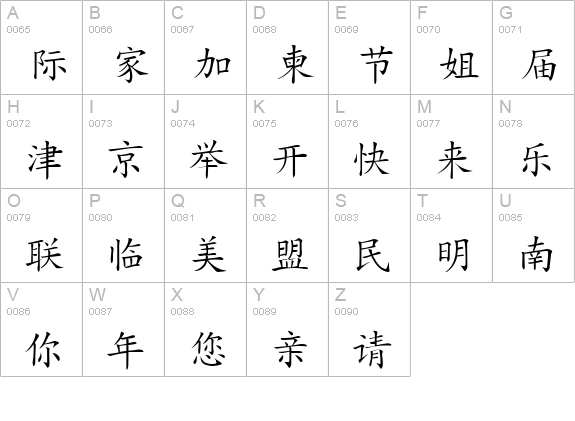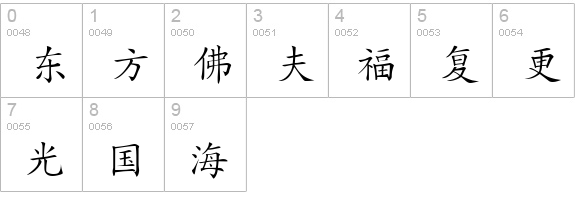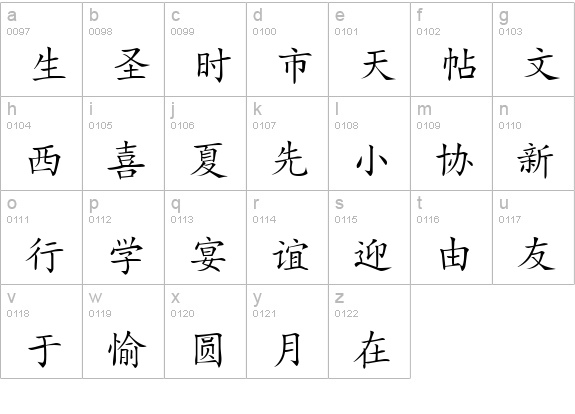
HanziKaishu Font Details
Introducing HanziKaishu, a beautifully crafted font that embodies the essence of traditional Chinese calligraphy. With its elegant strokes and intricate details, this font captures the artistry and sophistication of the Kaishu script, making it a perfect choice for various design projects. HanziKaishu is not only visually stunning but also versatile, making it suitable for both modern and classic designs. It effortlessly brings a touch of elegance and cultural richness to any project it is used in, whether it be for branding, packaging, advertising, or editorial design. One of the most remarkable aspects of HanziKaishu is that it is available for free download at FontsMarket.com. This means that designers and enthusiasts alike can easily access and utilize this exquisite font without any limitations. The convenience of freely accessing such a high-quality font ensures that creativity knows no bounds. The attention to detail in HanziKaishu is truly remarkable. Each character is meticulously crafted, showcasing the skill and expertise of the calligrapher behind its creation. The fluidity and grace of every stroke make this font truly captivating, evoking a sense of tradition and cultural heritage. Whether you are creating a logo for a Chinese-inspired brand, designing an invitation for a special event, or simply looking to add a touch of elegance to your typography, HanziKaishu is the perfect choice. Its timeless beauty and its availability for free download make it an invaluable asset for designers and enthusiasts alike. Experience the beauty and versatility of HanziKaishu by downloading it freely at FontsMarket.com. Unleash your creativity and explore the endless possibilities that this font offers. Let HanziKaishu elevate your designs and transport your audience into the captivating world of Chinese calligraphy.